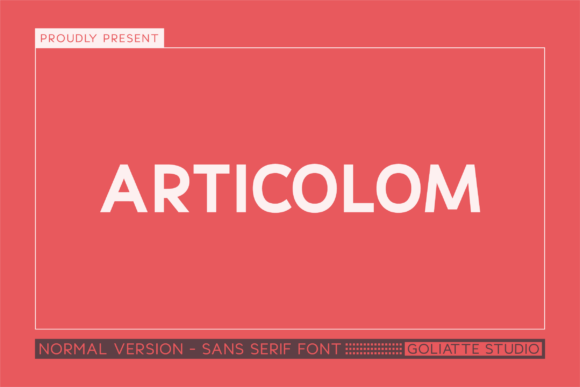
Introducing Articolom – A Modern Sans Serif Typeface
In the world of typography, fonts play a crucial role in conveying messages, expressing emotions, and creating brand identities. With the ever-evolving design landscape, it’s essential to have a font that not only stands out but also communicates professionalism and authority. This is where Articolom comes in – a bold, all-caps sans serif font designed specifically for the modern designer.
The Art of Typography: Clean Lines and Minimalist Aesthetic
Articolom boasts a clean and minimalist aesthetic, characterized by its sharp, crisp edges and strong, geometric structure. The all-caps design ensures clarity and readability, making it perfect for headlines, posters, and anywhere you need your message to stand out. The font’s bold, clean lines exude strength and confidence, making it an ideal choice for projects that require a sense of professionalism and impact.
Key Features of Articolom
- All-caps design for maximum impact and emphasis on clarity and readability
- Modern, minimalist style with a focus on clean lines and geometric structure
- Bold, clean lines for a confident and professional look
- Ideal for branding, logos, packaging, and digital design due to its versatility and scalability
- Perfect for both large-scale headlines and smaller text blocks due to its clear and readable design
Who is Articolom For?
Articolom is perfect for brands, agencies, and designers looking to create a modern, authoritative identity. Its bold and confident design makes it especially suitable for:
- Tech companies looking for a font that exudes innovation and professionalism
- Corporate branding that requires a sense of authority and stability
- Luxury design projects where style and readability are paramount
The Benefits of Using Articolom
Using Articolom in your design projects offers numerous benefits, including:
- Increased readability due to its clear and bold design
- Improved brand identity through its modern and authoritative aesthetic
- Enhanced versatility due to its scalability and adaptability across different mediums
- Unique and distinctive look that sets your brand apart from others
How to Use Articolom Effectively
To get the most out of Articolom, consider the following tips:
- Use it for headlines and titles to create a bold and impactful statement
- Pair it with other fonts to create a unique and visually appealing typography combination
- Experiment with different colors and textures to add depth and interest to your design
- Use it consistently across different mediums to create a cohesive brand identity
Articolom is a powerful and versatile font that can elevate your design projects to the next level. Its bold, modern design and clean lines make it perfect for brands, agencies, and designers looking to create a professional and authoritative identity. With its numerous benefits and adaptability, Articolom is sure to become a go-to font for designers around the world.